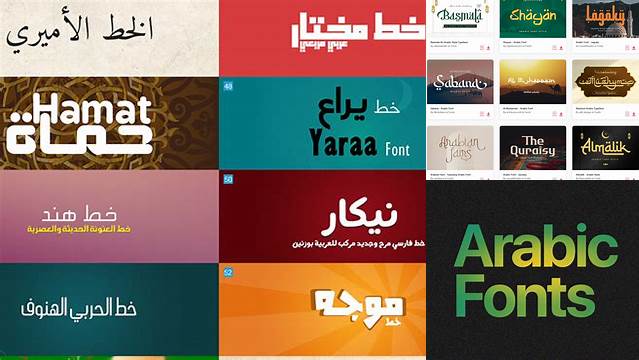
Top Arabic Fonts: Best For Websites In 2024
Choosing the best Arabic fonts for websites can be a game-changer for your online presence. A well-selected font not only enhances readability but also adds a unique cultural flair to your site. In this comprehensive guide, we'll explore a variety of Arabic fonts perfect for web use, ensuring your website looks stunning and resonates with your audience. From traditional styles to modern interpretations, we've got you covered with expert insights and practical tips to make the right choice. So, let's dive in and discover the perfect Arabic font to elevate your website's design!
Arabic Font Styles: A Comprehensive Guide
Understanding the different styles of Arabic fonts for websites is crucial before making a decision. The Arabic script boasts a rich history, evolving into various styles, each with its unique characteristics and applications. The main categories include Naskh, Kufic, Thuluth, and Ruq'ah, each offering a distinct aesthetic that can significantly impact the overall feel of your website. Naskh, known for its clarity and legibility, is often preferred for body text, ensuring a comfortable reading experience. Kufic, with its geometric and angular forms, is ideal for headlines and logos, adding a touch of traditional elegance. Thuluth, characterized by its ornate and flowing curves, is best suited for decorative elements, while Ruq'ah, a more informal and handwritten style, can lend a personal touch to your site. By exploring these styles, you can select the best Arabic fonts that align with your brand's identity and effectively communicate your message.
Naskh Fonts for Website Content
When it comes to readability, Naskh fonts are among the best Arabic fonts for websites, especially for body content. Known for its clear, simple, and legible design, Naskh has been a staple in Arabic typography for centuries. Its balanced letterforms and consistent stroke width make it easy on the eyes, ensuring a comfortable reading experience for your visitors. Choosing Naskh fonts for your website's content can significantly improve engagement and reduce bounce rates, as users can effortlessly consume your information. There are numerous variations of Naskh fonts available, each with subtle differences that can add a unique touch to your site. Some popular options include traditional Naskh styles that evoke a sense of authenticity, while others offer a more modern and streamlined look, perfect for contemporary designs. By selecting the right Naskh font, you can enhance the overall user experience and ensure your website's content is both accessible and visually appealing.
Kufic Fonts for Headlines and Logos
For eye-catching headlines and logos, Kufic fonts stand out as some of the best Arabic fonts for websites. With their bold, angular, and geometric designs, Kufic fonts bring a touch of historical elegance and sophistication to your brand. These fonts are particularly effective in creating a strong visual impact, making them ideal for grabbing attention and leaving a lasting impression. Kufic fonts have a rich history, dating back to the early days of Islam, and their distinctive forms have been used in various architectural and artistic contexts. When using Kufic fonts on your website, it's important to consider their legibility, as their intricate designs can sometimes be challenging to read in smaller sizes. Therefore, it's best to reserve Kufic fonts for headlines, logos, and other prominent design elements where their unique character can shine. By incorporating Kufic fonts strategically, you can add a sense of heritage and artistic flair to your website, setting it apart from the competition.
Thuluth Fonts for Decorative Elements
If you're looking to add a touch of elegance and sophistication to your website, Thuluth fonts are some of the best Arabic fonts for websites for decorative elements. Known for their flowing curves, intricate details, and ornate designs, Thuluth fonts bring a sense of artistry and tradition to any project. While not ideal for body text due to their complexity, Thuluth fonts excel in adding visual interest to headings, banners, and other decorative components. These fonts have a long and storied history, often used in calligraphy and religious texts, lending a sense of reverence and grandeur. When using Thuluth fonts on your website, it's important to use them sparingly to avoid overwhelming the overall design. Instead, focus on incorporating them strategically to highlight key elements and add a touch of refinement. By doing so, you can create a visually stunning website that captivates your audience and leaves a lasting impression.
Ruq'ah Fonts for a Personal Touch
For a more informal and personal feel, Ruq'ah fonts are among the best Arabic fonts for websites. With their handwritten and cursive style, Ruq'ah fonts bring a sense of warmth and authenticity to your online presence. These fonts are perfect for adding a personal touch to your website, making it feel more inviting and approachable. While not as widely used as Naskh or Kufic, Ruq'ah fonts can be incredibly effective in specific contexts, such as signatures, quotes, or short messages. They can also be used to create a unique and memorable brand identity, setting your website apart from the competition. When using Ruq'ah fonts, it's important to ensure they are legible, as their cursive nature can sometimes make them difficult to read. Therefore, it's best to use them sparingly and in larger sizes to maximize their impact. By incorporating Ruq'ah fonts thoughtfully, you can create a website that feels both personal and professional, fostering a deeper connection with your audience.
Modern Arabic Fonts for Contemporary Designs
In the realm of contemporary web design, modern Arabic fonts for websites are increasingly popular for their clean lines and versatile aesthetics. These fonts often blend traditional Arabic calligraphy with modern design principles, resulting in typefaces that are both legible and visually appealing. Modern Arabic fonts can be used in a variety of contexts, from headlines and body text to logos and branding materials. Their versatility makes them an excellent choice for websites aiming to convey a sense of innovation and sophistication. Some popular modern Arabic fonts include those with geometric shapes, minimalist designs, and sans-serif styles. These fonts are often designed to work well on screens, ensuring readability and clarity across different devices. By choosing modern Arabic fonts, you can create a website that feels fresh, contemporary, and accessible to a global audience.
Traditional Arabic Fonts: Timeless Options
For websites aiming to evoke a sense of history and cultural authenticity, traditional Arabic fonts for websites remain a timeless choice. These fonts are deeply rooted in the rich heritage of Arabic calligraphy and typography, offering a glimpse into the past while remaining relevant in contemporary design. Traditional Arabic fonts are often characterized by their intricate details, ornate designs, and elegant letterforms. They can be used in a variety of contexts, from religious websites and cultural institutions to brands seeking to convey a sense of heritage and tradition. Some popular traditional Arabic fonts include Naskh, Kufic, and Thuluth, each with its unique characteristics and applications. When using traditional Arabic fonts, it's important to consider their legibility, as their complex designs can sometimes be challenging to read in smaller sizes. Therefore, it's best to use them strategically and in larger sizes to maximize their impact. By incorporating traditional Arabic fonts thoughtfully, you can create a website that feels both authentic and visually stunning, connecting with your audience on a deeper level.
Best Arabic Fonts for E-commerce Websites
For e-commerce websites targeting Arabic-speaking customers, selecting the best Arabic fonts for websites is crucial for creating a seamless and engaging shopping experience. The right font can not only enhance readability but also convey a sense of trust and professionalism, encouraging customers to make purchases. When choosing Arabic fonts for e-commerce websites, it's important to prioritize legibility, especially for product descriptions, prices, and calls to action. Naskh fonts are often a good choice for body text, while Kufic or modern Arabic fonts can be used for headlines and banners. Additionally, it's important to consider the font's compatibility with different devices and browsers, ensuring a consistent experience for all users. By selecting the right Arabic fonts, you can create an e-commerce website that feels both user-friendly and visually appealing, driving sales and building customer loyalty.
Arabic Fonts for Blogs and News Sites
Blogs and news sites require fonts that are highly readable and visually appealing. The best Arabic fonts for websites in this category enhance the reading experience and keep visitors engaged. Clear, legible fonts like Naskh are ideal for long-form content, ensuring readers can easily follow the text without strain. Headlines and subheadings can benefit from bolder fonts, such as Kufic or modern Arabic styles, to draw attention and break up the text. Consistency in font usage across the site helps maintain a professional look. Consider using fonts that are optimized for web viewing, ensuring they display correctly on various devices and browsers. By selecting the appropriate Arabic fonts, blogs and news sites can improve user engagement and deliver content effectively.
Resources for Learning More About Arabic Typography
Numerous resources are available for those interested in learning more about Arabic fonts for websites. Online courses and tutorials can provide a comprehensive introduction to Arabic typography and web design. Books and articles on Arabic calligraphy and typography can offer valuable insights into the history and techniques of this art form. Workshops and conferences on typography and design can provide opportunities to learn from experts and network with other professionals. Online forums and communities can offer a platform for asking questions, sharing knowledge, and receiving feedback. By utilizing these resources, you can expand your knowledge of Arabic typography and enhance your web design skills.